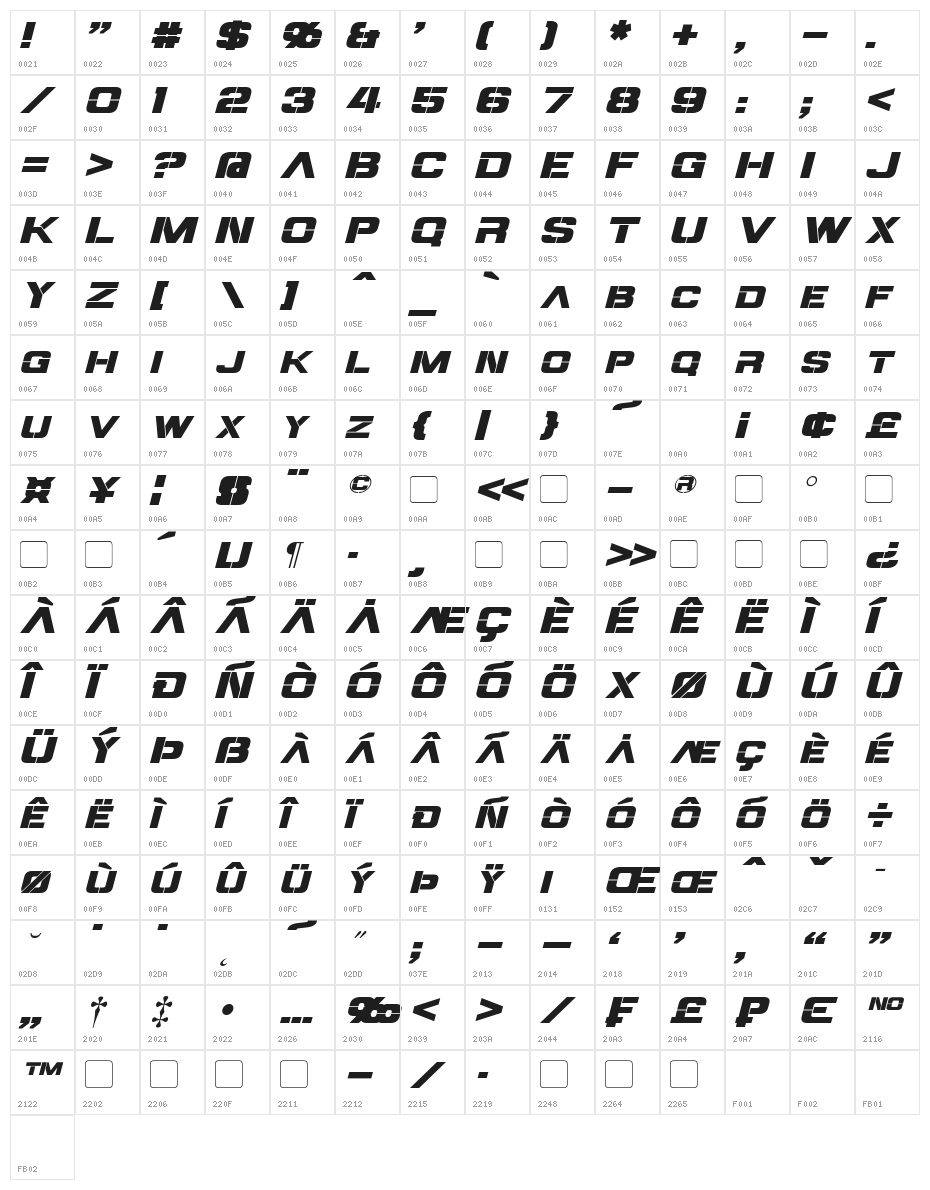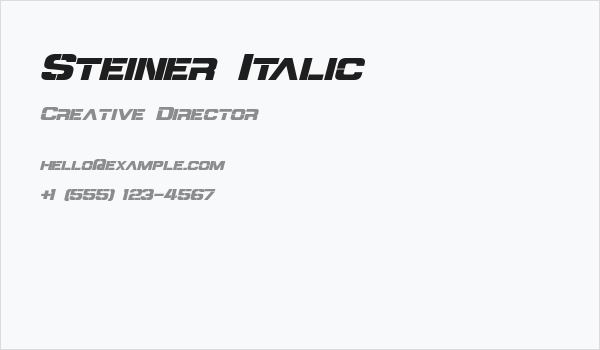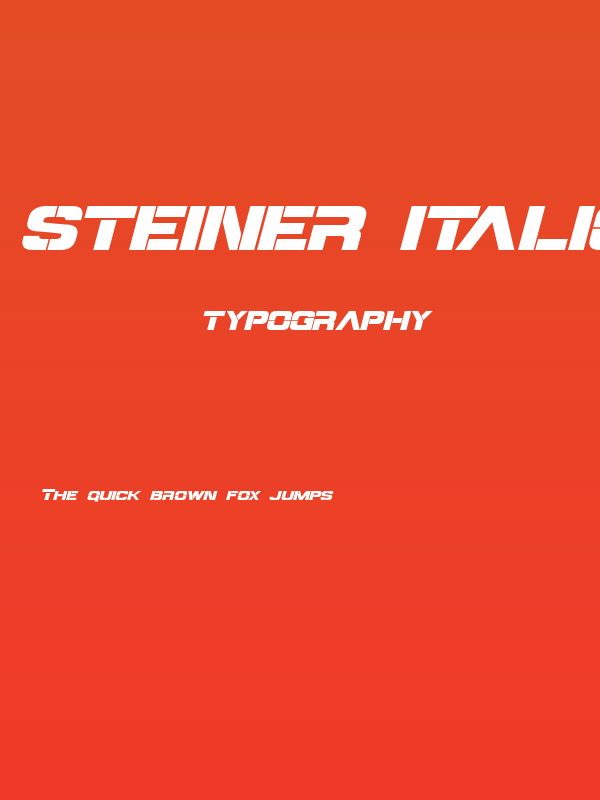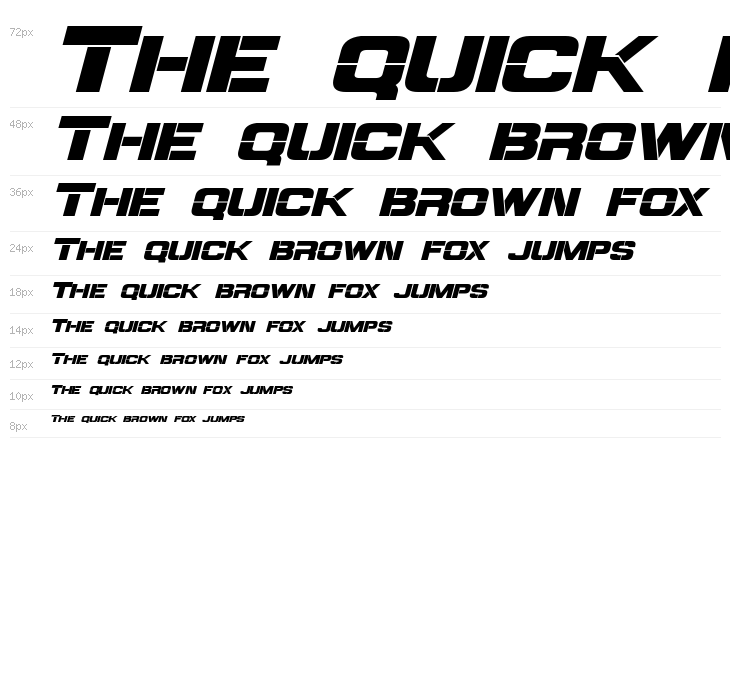
Steiner Italic Font
Steiner Italic Description
This font features a bold, italicized style with a futuristic and dynamic appearance. The characters are slanted, giving a sense of motion and speed. The strokes are thick and consistent, providing a strong visual impact. The design includes sharp angles and clean lines, contributing to its modern and sleek aesthetic. The uppercase and lowercase letters maintain a uniform style, while the numerals and special characters are designed to complement the overall look. This font is ideal for projects that require a bold and energetic feel.
| Proposed Projects | Ideal for sports branding, tech logos, video game titles, and dynamic posters. |